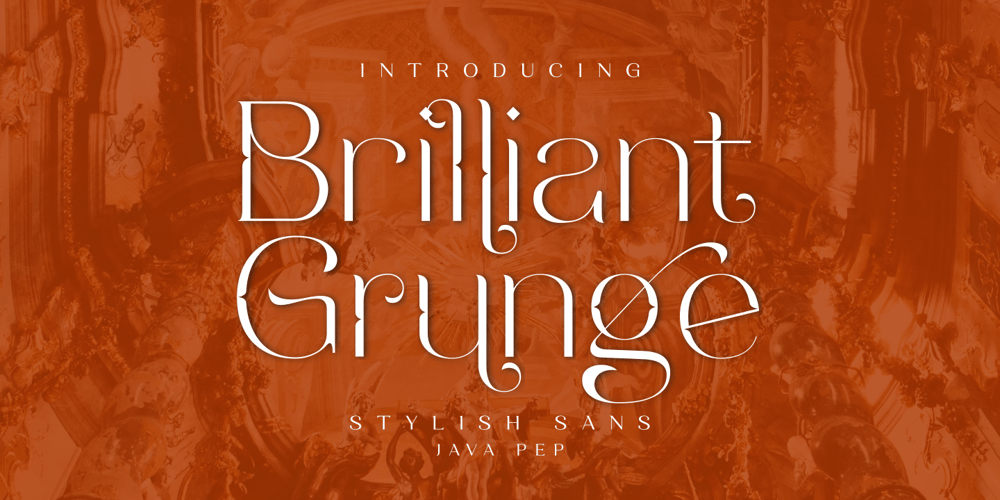
Brilliant Grunge Font Family was designed by Java Pep and published by Java Pep. Brilliant Grunge contains 4 styles and family package options. Introducing stylish modern sans serif font. The font builds with many stylistic alternates for forming beauty stylish sans. The font is called Brilliant Grunge font, every glyph or letter builds with more than 3 alternates sets for access to the alternate font you must use compatible software like Adobe Illustrator, Adobe Photoshop, Corel, Affinity, Procreate, Inkscape 01. or the newest and etc. If you are not using compatible software you can use and Install character maps software you can see the tutorial https://www.youtube.com/watch?v=KV7n5nxmsLs .